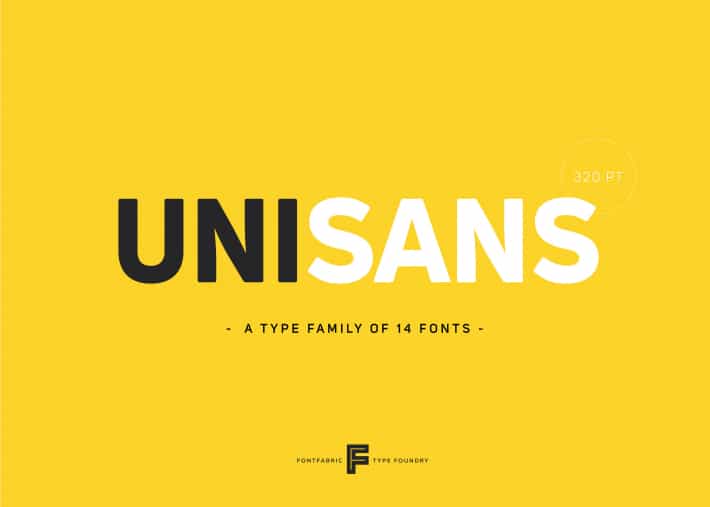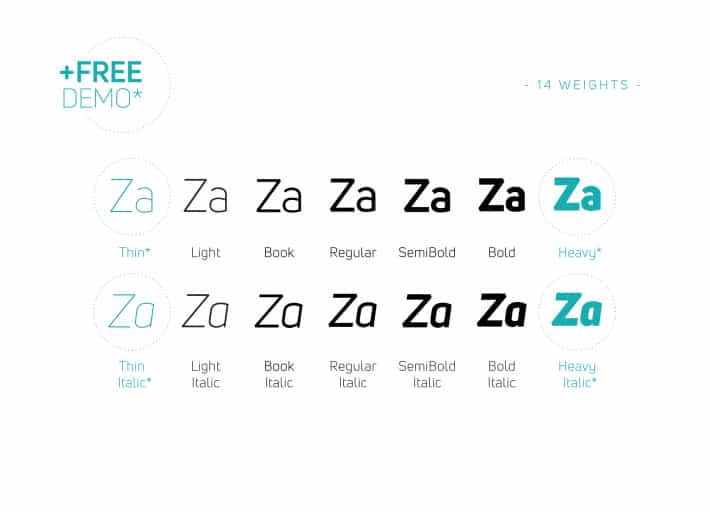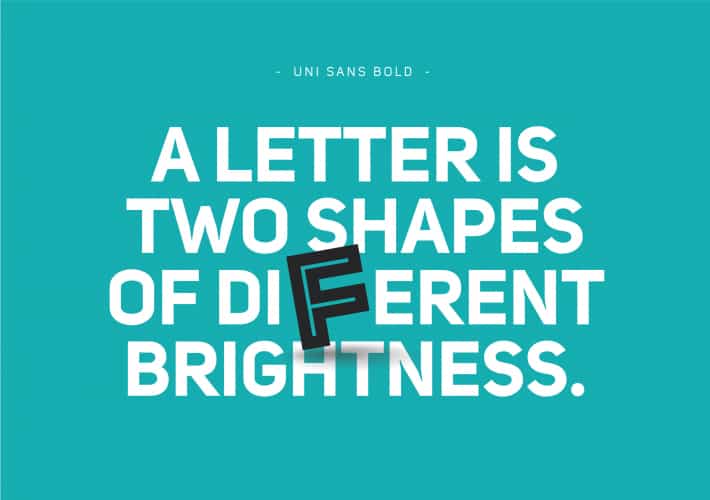
The Uni Sans font type has fourteen members – seven standard and seven oblique. It is very clear in web design & very suitable for print design – the finishing of geometric shapes, the proper kerning, web font performance and readability etc. It is inspired by the classic grotesque strong fonts such as DIN and Dax – Uni Sans has his own perfect softened geometric forms.